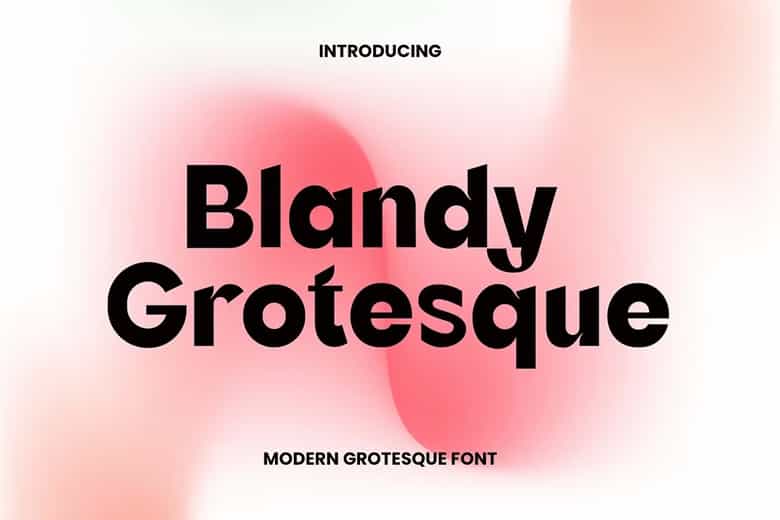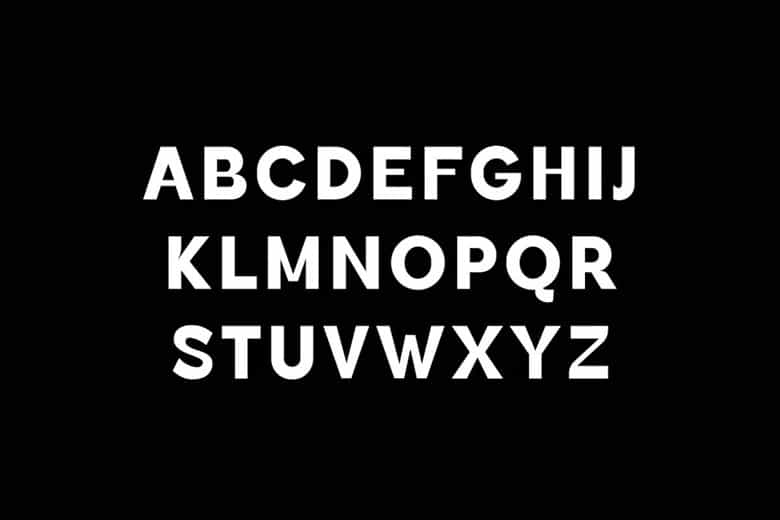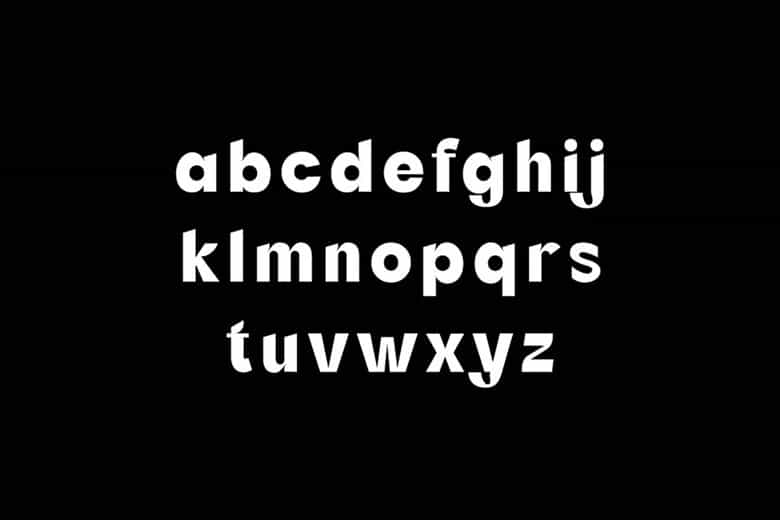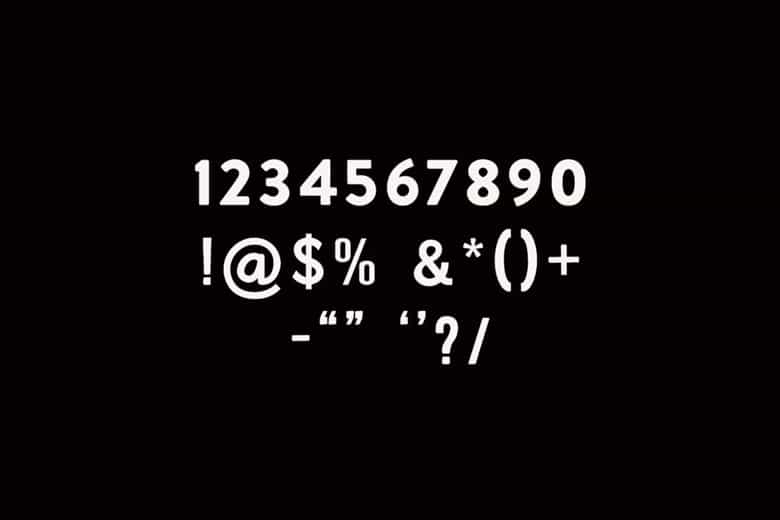
Blandy Grotesque is an extraordinary stripped sans serif typeface that is designed by UICreative. This font is perfect for any type of projects, including but not limited to stationery, logo, wedding, typography quotes, magazine or book cover, website header logo branding and more.